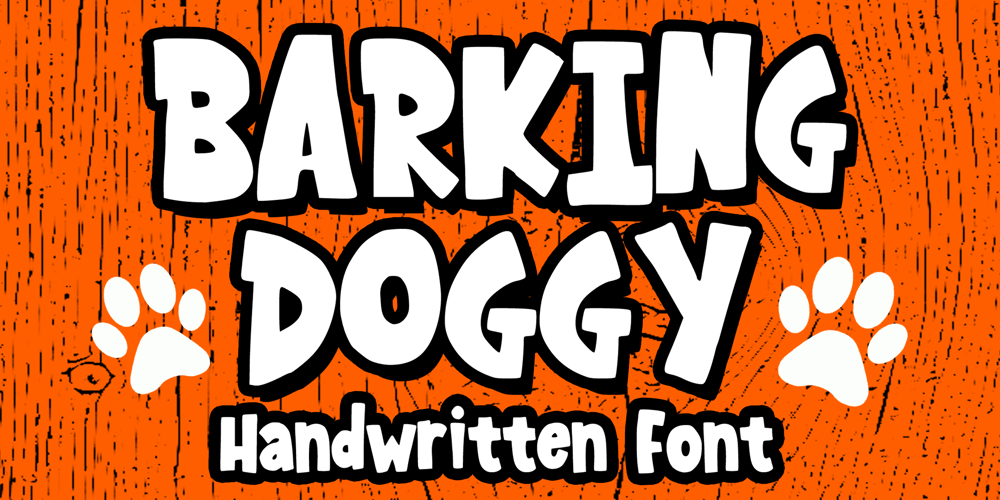
Barking Doggy Font Family was designed by Gabriel Valentinus and published by Mvmet. Barking Doggy contains 1 styles and family package options. Barking Doggy is a cool and fun handwritten display font, you can use it on your daily activities, your fun projects, birthdays, school, and others. Use this font for many design ideas such as mugs, t-shirt designs, posters, stickers, greeting cards, and many more. This font will add a cool touch to your designs!